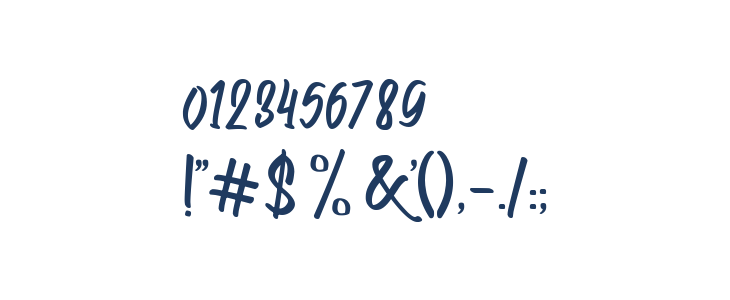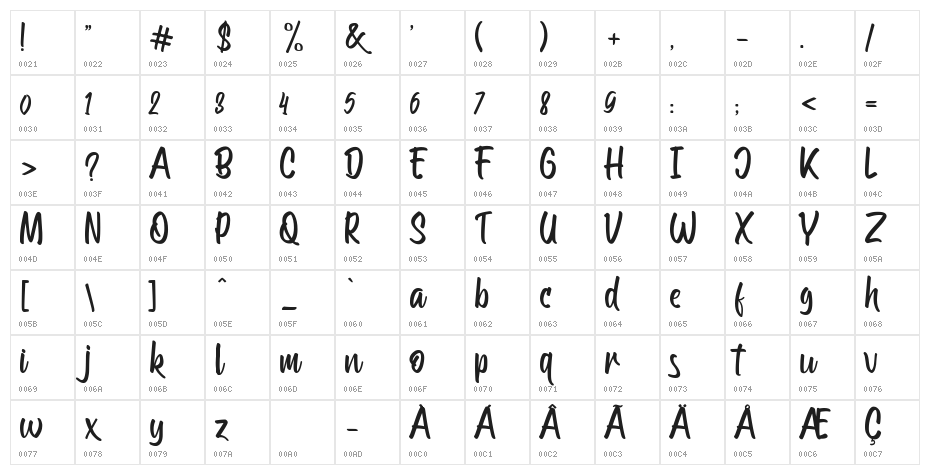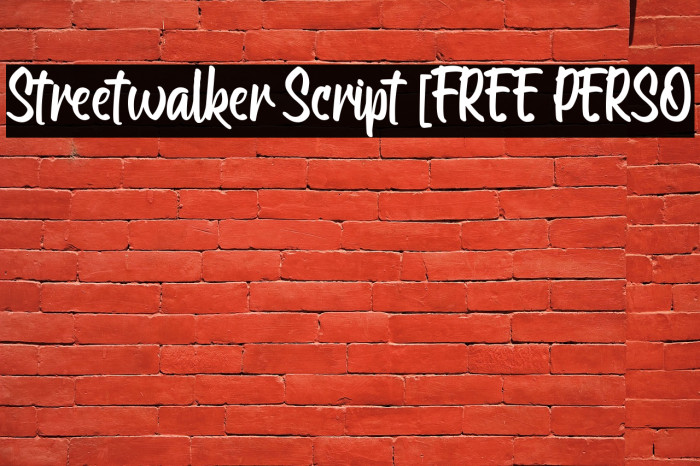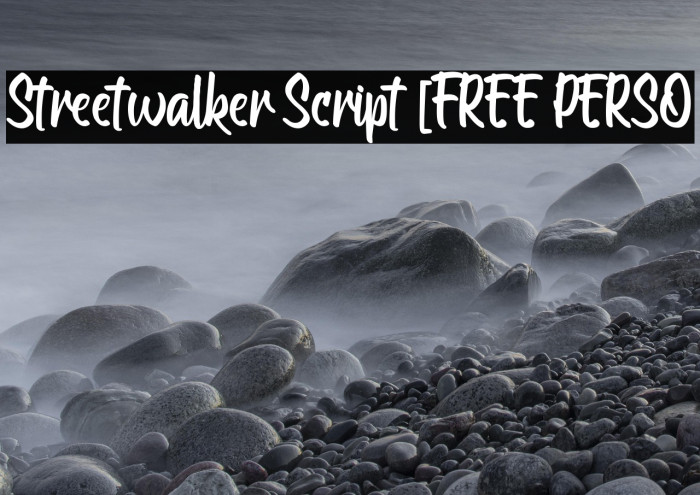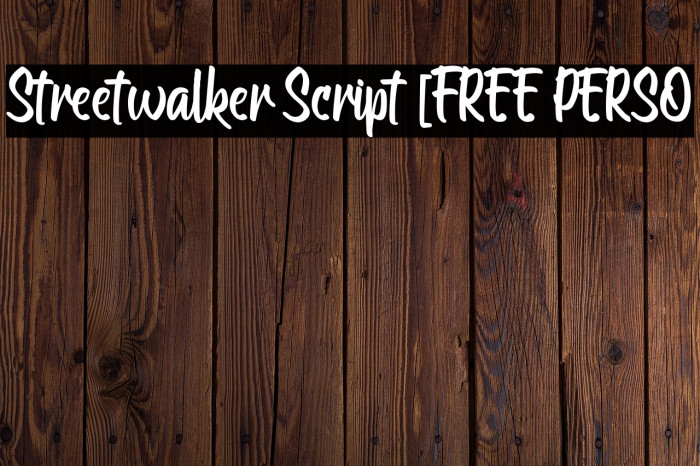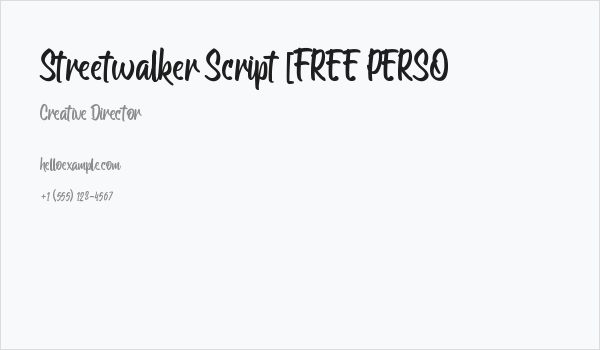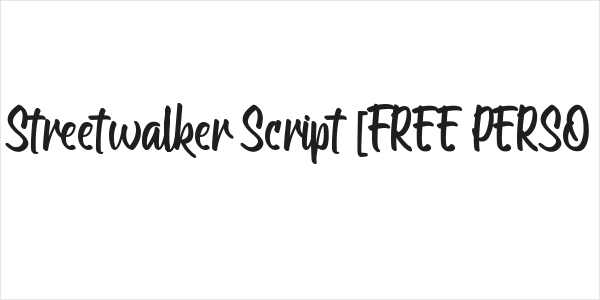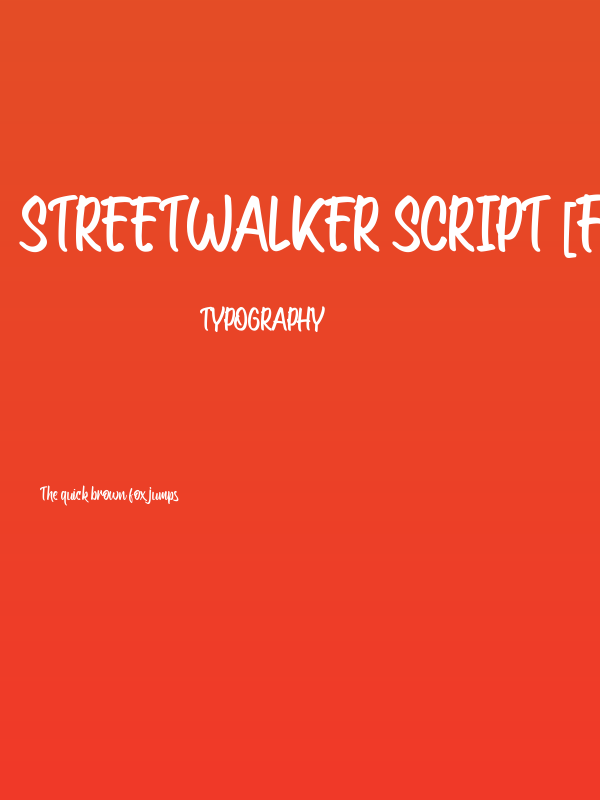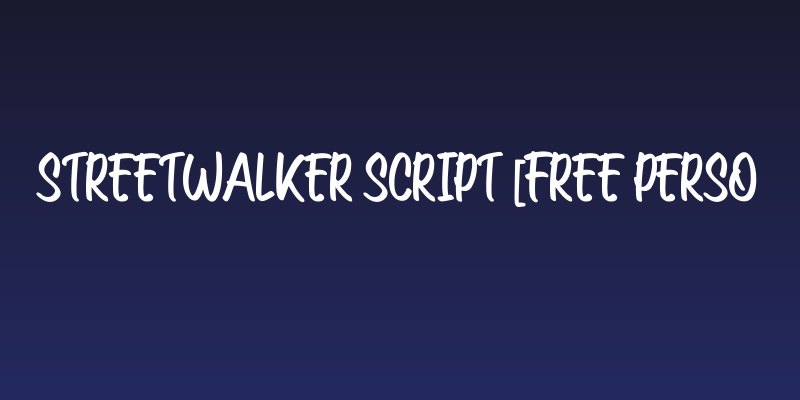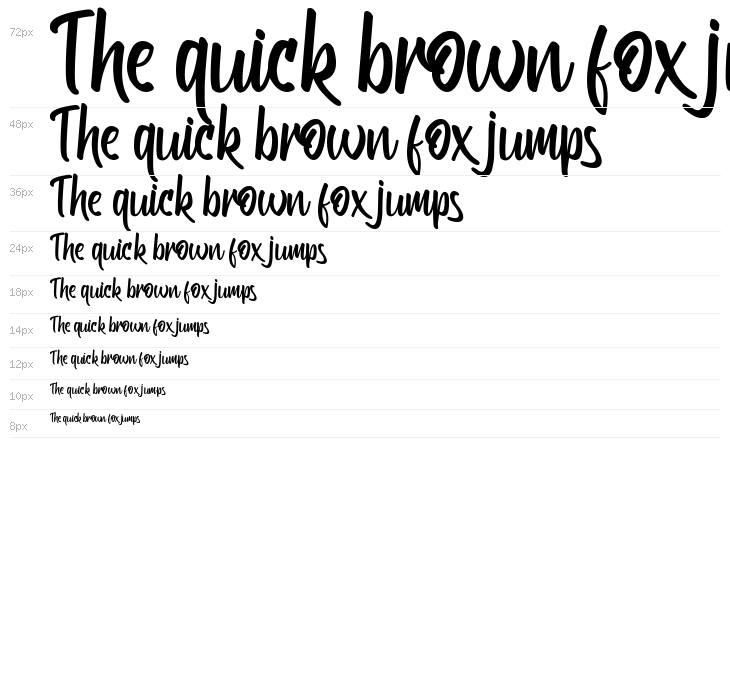
Streetwalker Script [FREE PERSO Font
Streetwalker Script [FREE PERSO Description
This font exudes a lively and energetic script style, characterized by its bold, flowing strokes and playful curves. The uppercase letters are tall and slightly condensed, giving a sense of elegance and movement. The lowercase letters maintain a consistent rhythm, with smooth connections that enhance readability. Numbers are well-proportioned, complementing the overall aesthetic. Special characters are creatively designed, adding a touch of whimsy. This font's dynamic appearance makes it suitable for projects that require a personal and informal touch, while still maintaining a sense of sophistication.
| Proposed Projects | Ideal for greeting cards, invitations, branding, and social media graphics. |